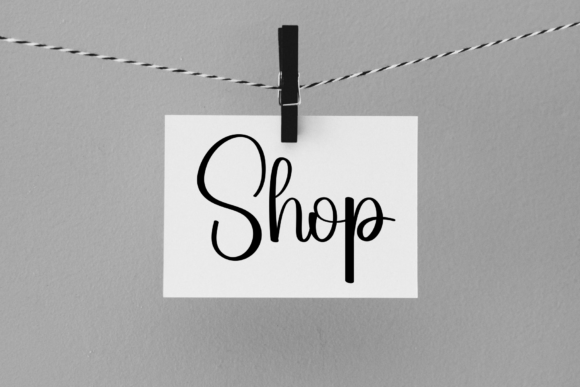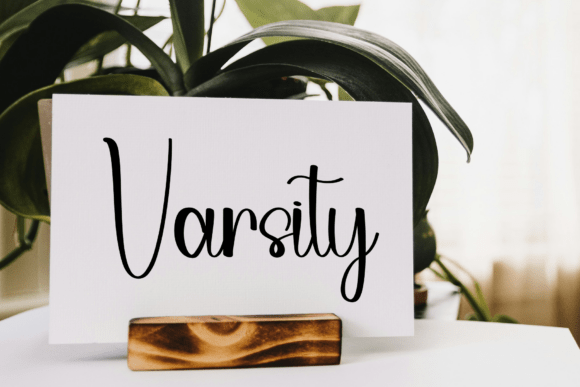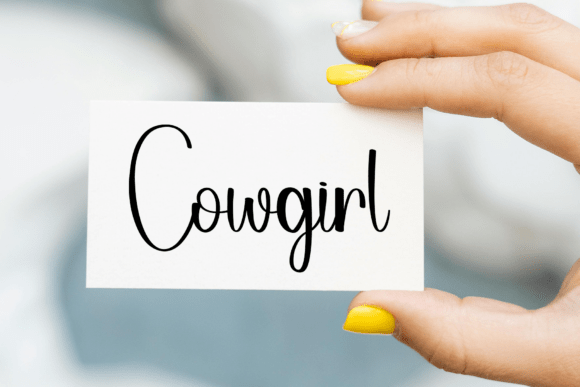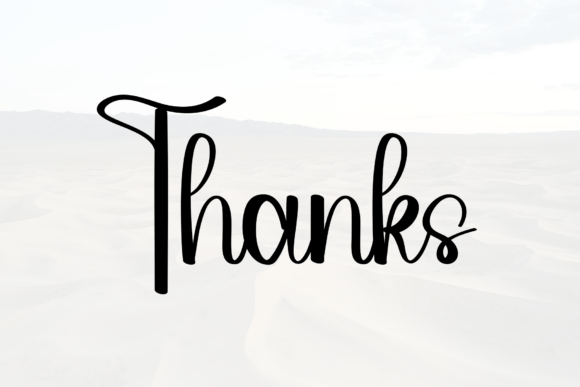
Introduction to Monster Valentine Font
As a designer, have you ever found yourself in a creative rut, searching for the perfect font to bring your project to life? Maybe you’re working on a Valentine’s Day design, or perhaps you’re looking to add a touch of whimsy to a birthday card. Whatever the occasion, the right font can make all the difference.
That’s where the Monster Valentine Font comes in – a sweet and beautiful handwritten font that’s sure to capture the hearts of your audience. With its charming characters dancing along the baseline, this font adds a cozy accent to any design project you wish to create.
Whether you’re a seasoned designer or a hobbyist, the Monster Valentine Font is a valuable resource to have in your toolkit. Not only is it free to download, but its high-quality design also ensures that your projects will stand out from the crowd. Plus, with a transparent background, you can easily integrate it into your designs without any distractions.
Key Features of Monster Valentine Font
- Unique and playful design perfect for creative projects and design resources.
- High-quality font with a transparent background, allowing for easy customization.
- Designed with a bold and fun style, perfect for Valentine’s Day-themed designs and creative projects.
- Supports a wide range of languages, making it a versatile design resource.
Honest Review: Monster Valentine Font
I recently stumbled upon the Monster Valentine Font, and I’m excited to share my thoughts on this design resource. As a designer, I’m always on the lookout for high-quality fonts to elevate my creative projects. This font is definitely a gem in the world of free downloads.
Here are some things that work well about the Monster Valentine Font:
- Its playful, whimsical design is perfect for Valentine’s Day-themed projects, making it a great addition to any romantic or cute-themed project.
- The font is incredibly versatile and can be used in a variety of contexts, from social media graphics to print materials.
- The font may not be suitable for formal or professional projects, as its playful design may not convey the right tone.
- The font’s uniqueness may make it harder to pair with other fonts, so be prepared to get creative with your typography.
Overall, I’m impressed with the Monster Valentine Font. Its high quality and versatility make it a valuable addition to any designer’s toolkit. With a little creativity, this font can elevate even the most mundane projects into something truly special.
To get the most out of the Monster Valentine Font, experiment with different font sizes, colors, and combinations. You can also use it in conjunction with other design resources to create a unique look.
The Monster Valentine Font is ideal for use in creative projects, such as invitations, social media graphics, and advertising materials. Its unique style makes it perfect for adding a touch of personality to your design.